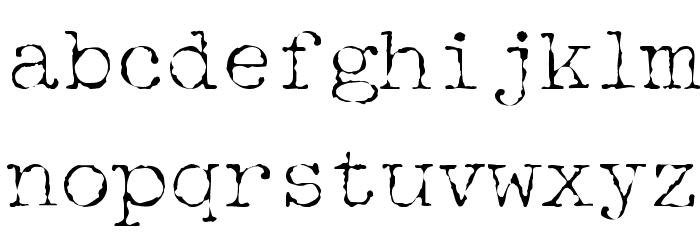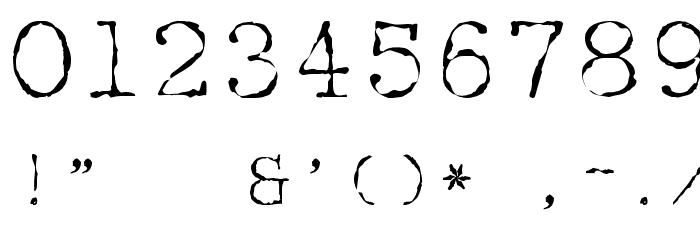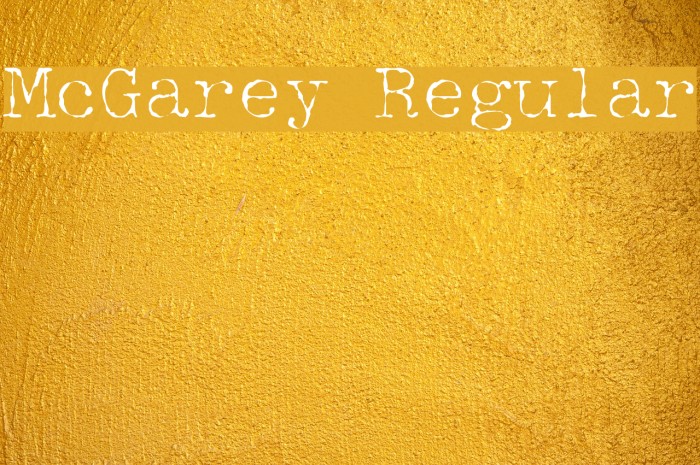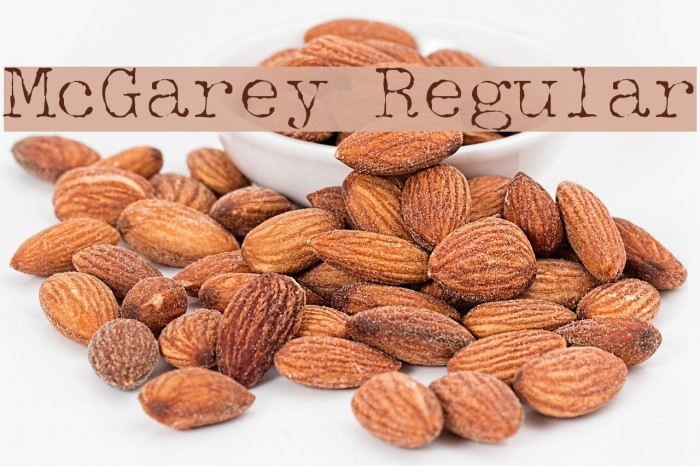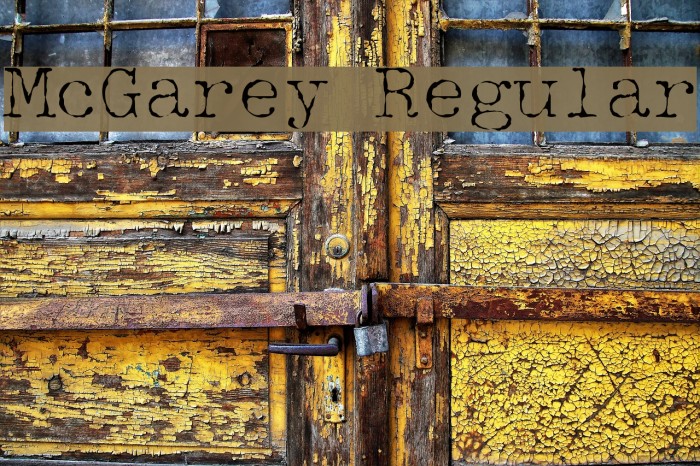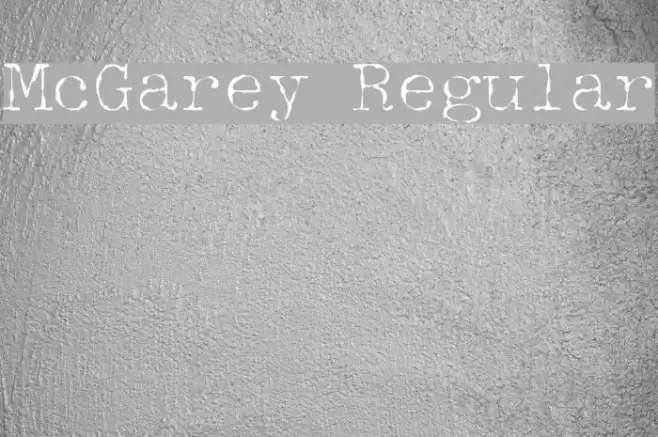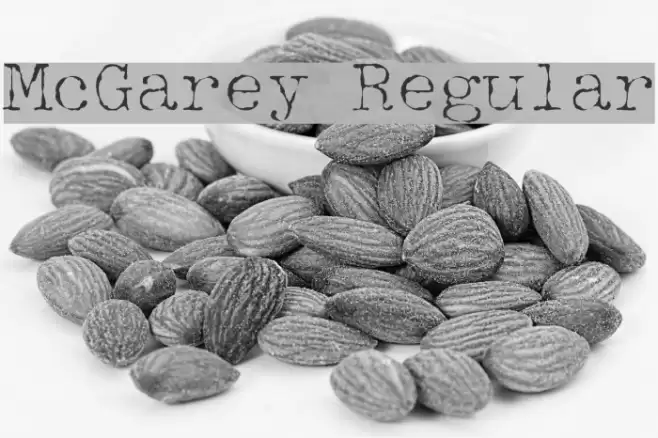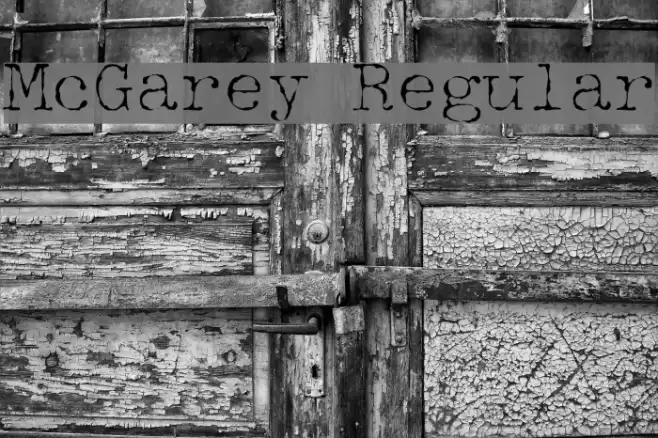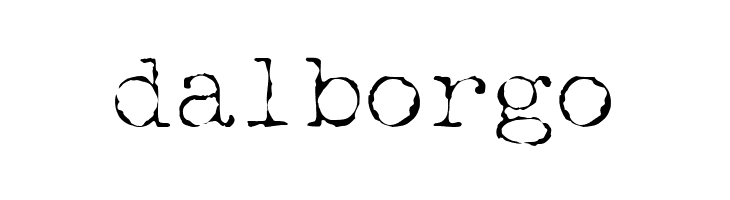
McGarey Regular Font
This font features a distressed, vintage style with a unique texture that gives it an aged, weathered appearance. The characters are serifed, with irregular edges and a rough, hand-crafted look. The uppercase and lowercase letters maintain a consistent style, with the uppercase being slightly more pronounced. Numbers and special characters follow the same design, adding to the overall cohesive aesthetic. The font's distinct appearance makes it ideal for projects that require a touch of nostalgia or a rustic feel.
A distressed, vintage serif font with a textured, weathered look.
- Proposed Projects: Ideal for vintage-themed posters, rustic branding, historical documents, and creative projects that require a nostalgic touch.
- Overall Style: Vintage
- Use Case: Headlines, Logos, Decorative text